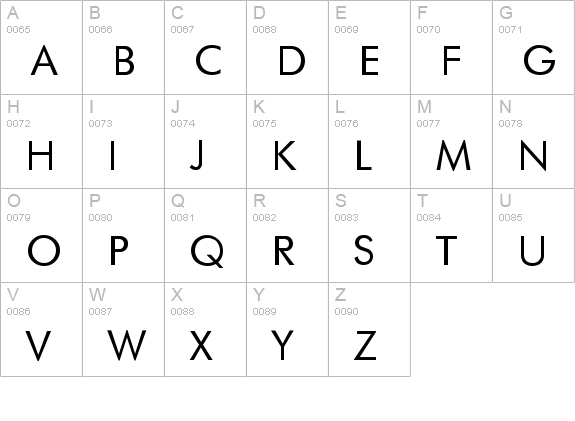
Futurist Regular is the standard, neutral variant in the Futurist typeface family \xE2\x80\x94 well suited to general body text, paragraphs, and standard typographic work.
Futurist Regular font is a modern and sleek typeface that embodies the spirit of innovation and progress. Its clean lines and futuristic aesthetic make it perfect for projects that require a contemporary and forward-thinking look. The font is versatile and can be used for a variety of design purposes, from branding to editorial design. What's even better is that Futurist Regular font is available for free download at FontsMarket.com. This means that you can easily access and use this cutting-edge font in your projects without any cost. Embrace the future of design with Futurist Regular font and take your creations to the next level.